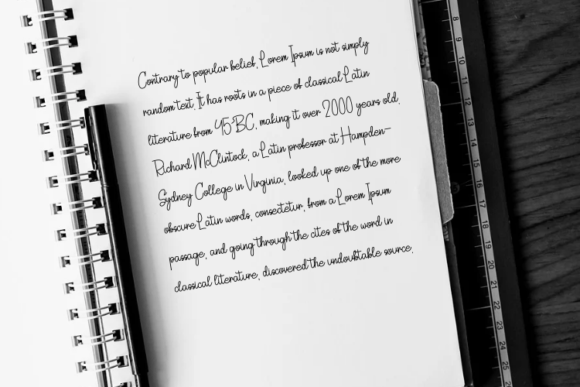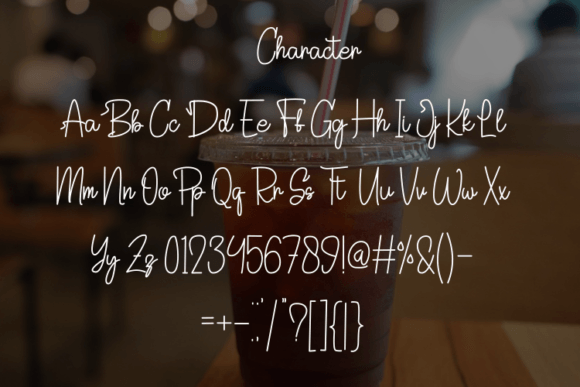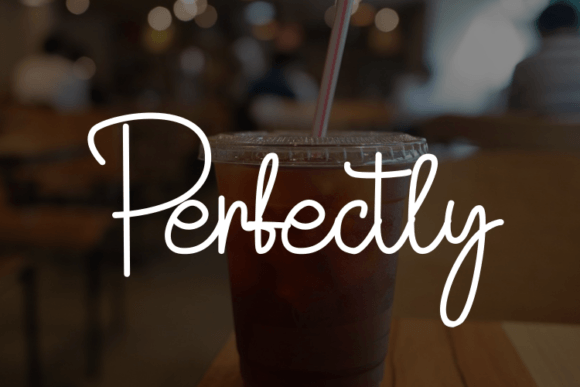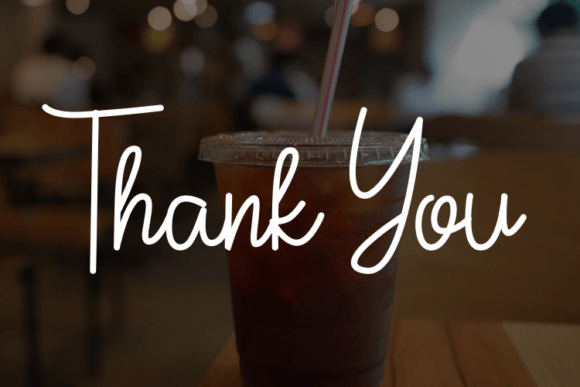
Introduction to Mistery Latter Font
Mistery Latter is a script typeface that has a simple style and modern look.
This typeface is perfect for an elegant and luxurious logo, book or movie design titles, fashion brands, magazines, clothing, fonts, quotes, and more .